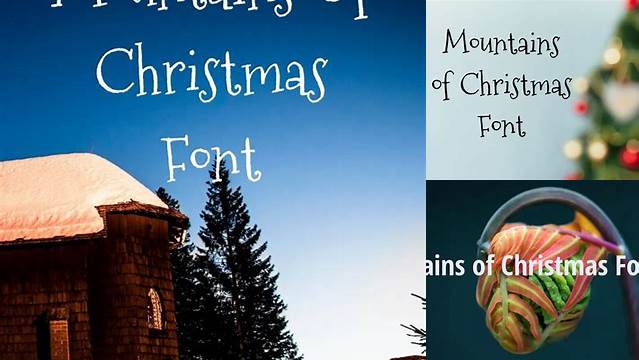
Mountains Of Christmas Font: Free Download & Features
When the holiday season rolls around, the Mountains of Christmas font is an absolute must-have for anyone looking to add a festive and whimsical touch to their Christmas-themed projects. This charming typeface beautifully captures the spirit of the holidays with its playful yet elegant design. If you're on the hunt for that perfect font to make your Christmas cards, invitations, social media posts, or even DIY crafts stand out, you've come to the right place. We'll dive deep into why this font is so popular, where you can snag a free download, and how you can best utilize its unique characteristics to spread that holiday cheer, guys. Itâs all about making your creations look as magical as the season itself, and the right font plays a massive role in that. Let's explore the wonderful world of the Mountains of Christmas font and get your designs ready for Santa's arrival!
The Magic Behind Mountains of Christmas Font
The Mountains of Christmas font is more than just a collection of letters; itâs a digital embodiment of cozy Christmas mornings and twinkling lights. Its design evokes a sense of nostalgia, reminiscent of classic holiday movie titles or the handwritten letters from Santa Claus himself. The font features a delightful mix of thick and thin strokes, giving it a hand-drawn feel thatâs both warm and inviting. This unique characteristic makes it incredibly versatile, allowing it to be used for everything from bold headlines to delicate accents. The slight irregularity in the letterforms adds to its handcrafted charm, making each word feel personal and special. Itâs the kind of font that instantly transports you to a winter wonderland, complete with snow-dusted pines and the scent of gingerbread baking. Whether you're designing a banner for a Christmas party or creating personalized gift tags, the Mountains of Christmas font ensures your message is delivered with warmth and festive spirit. Itâs that extra touch that elevates your holiday designs from ordinary to extraordinary, giving them that authentic, heartfelt quality that really resonates with people during this special time of year. You guys will love how it brings your ideas to life with such personality!
Why Mountains of Christmas Font is a Holiday Design Staple
There are plenty of fonts out there, but the Mountains of Christmas font has cemented its place as a holiday design staple for good reason. Its inherent festive quality makes it incredibly user-friendly for seasonal projects. You donât need to be a seasoned graphic designer to make this font look amazing; it practically does the work for you! The playful yet readable style ensures your message comes across clearly, whether youâre crafting a witty holiday slogan or a heartfelt greeting. It strikes a perfect balance, avoiding the overly kitschy or the too-formal, landing squarely in that sweet spot of charmingly festive. This versatility is key; it can be paired with more elegant fonts for a sophisticated look, or used on its own for a bold, impactful statement. Imagine using it for your companyâs holiday newsletter, your familyâs annual Christmas card, or even on merchandise like mugs and t-shirts â it just works. The slightly irregular, hand-drawn aesthetic gives it a personal touch that resonates deeply during a season focused on connection and goodwill. It feels authentic and approachable, making your designs more relatable and engaging. Guys, if youâre looking for a font that screams âChristmasâ in the most delightful way, this is it. Itâs a reliable go-to that consistently delivers festive results, making your design process smoother and your final product more impactful.
Exploring the Unique Characteristics of Mountains of Christmas Font
Let's talk about what makes the Mountains of Christmas font truly special. One of its most defining features is its delightful asymmetry and variation in stroke width. Unlike perfectly uniform fonts, Mountains of Christmas has a hand-lettered quality that gives it an organic, approachable feel. The letters have a slight bounce and quirkiness, as if they were merrily dancing across the page. This isn't a flaw; it's the font's superpower! This subtle imperfection adds a layer of personality and warmth that machine-perfect fonts often lack. Think of it like a beautifully imperfect, hand-knitted sweater â itâs cozy, unique, and made with love. The characters have a certain roundness and softness, avoiding sharp, harsh edges, which contributes to its friendly and inviting appearance. This makes it particularly suitable for projects aimed at families or creating a cozy, intimate atmosphere. Furthermore, the font includes a range of stylistic alternates and ligatures (depending on the specific version you download), which can add even more flair and customization to your text. These subtle variations ensure that your typography doesn't look repetitive, even in longer passages. Itâs these thoughtful details that elevate Mountains of Christmas from a simple typeface to a design tool that truly captures the joy and spirit of the holiday season. You'll find itâs incredibly satisfying to work with, guys, because it offers so much character right out of the box.
Utilizing Mountains of Christmas Font in Your Designs
Now that youâve got the Mountains of Christmas font downloaded and installed, the real fun begins: using it in your creative projects! This font is incredibly versatile, lending itself beautifully to a wide range of holiday applications. For invitations, think elegant script for the main event details, perhaps paired with a simpler sans-serif for the smaller text. Its playful nature also makes it perfect for Christmas card greetings â imagine âMerry Christmasâ written in bold Mountains of Christmas, perhaps accompanied by little hand-drawn snow elements. Social media graphics are another fantastic use case; create eye-catching holiday posts for Instagram or Facebook using this font for your captions or headlines. Donât forget about DIY crafts! It looks amazing on custom gift tags, personalized ornaments, or even signs for holiday markets. You can use it for titles, quotes, or even entire short phrases. Consider using it in a slightly distressed or textured way for an extra vintage holiday vibe. The key is to experiment! Pair it with other festive fonts, play with colors like deep reds, forest greens, and crisp whites, and add graphic elements like snowflakes, holly, or candy canes. Guys, the possibilities are endless, and the result is always a touch of genuine holiday magic.
Designing Festive Christmas Cards with Mountains of Christmas Font
When crafting your Christmas cards this year, the Mountains of Christmas font is your secret weapon for achieving that perfect blend of festive charm and personal touch. Imagine your heartfelt holiday message written in this delightful script â it instantly adds a sense of warmth and tradition. For the main greeting, like âMerry Christmasâ or âHappy Holidays,â using Mountains of Christmas in a bold, prominent size makes a strong visual statement. You can even use it for the signature, giving your card a unique, hand-signed feel. To create contrast and ensure readability, consider pairing it with a simpler, clean-lined font for the body of your message or address details. This creates a balanced look thatâs both stylish and easy to read. Think about layering the text: perhaps the main greeting in Mountains of Christmas, with a secondary festive phrase like âWarm Wishes from Our Home to Yoursâ in a complementary font. Experiment with colors that pop against your card background â a deep evergreen or a classic crimson often works beautifully with this font. Guys, the goal is to make your card feel personal and special, and this fontâs inherently friendly and slightly whimsical character helps achieve just that. It elevates your card from a simple piece of mail to a cherished holiday keepsake.
Creating Eye-Catching Holiday Social Media Graphics
Social media is buzzing during the holidays, and the Mountains of Christmas font is perfect for making your posts stand out. Whether youâre promoting a business, sharing personal updates, or running a holiday campaign, this font adds instant festive flair. Use it for your main text overlay on images or videos â think âHoliday Sale!â or âChristmas Party Invite!â in bold, festive lettering. Its readability ensures your message cuts through the noise of endless scrolling. For Instagram stories, try using it for titles, countdowns (â12 Days of Christmas!â), or even fun holiday polls. The fontâs slightly casual, hand-drawn vibe works particularly well with lifestyle or lifestyle-adjacent content. Consider pairing it with festive imagery like twinkling lights, cozy sweaters, or snow scenes. Donât be afraid to experiment with colors! Gold, silver, red, green, and even icy blues can look stunning with Mountains of Christmas. You can also use it for creating quote graphics featuring popular holiday sayings or song lyrics. Remember to check the legibility against your background image; sometimes a subtle drop shadow or outline can help the text pop. Guys, using this font on your social media makes your holiday content instantly more engaging and visually appealing, helping you connect with your audience during the festive season.
Wishing You a Merry Design Season!
As you dive into your holiday design projects, remember the joy and creativity that fonts like Mountains of Christmas can bring. Itâs a reminder that even small details, like the typeface you choose, can make a big difference in conveying the spirit of the season. We hope this guide has given you plenty of inspiration and practical tips for using this wonderful font effectively. Don't be afraid to experiment, have fun, and let your creativity flow! Wishing you all a smooth design process and a wonderfully festive holiday season filled with beautiful typography and lots of cheer. Guys, happy designing, and may your creations shine bright this Christmas!